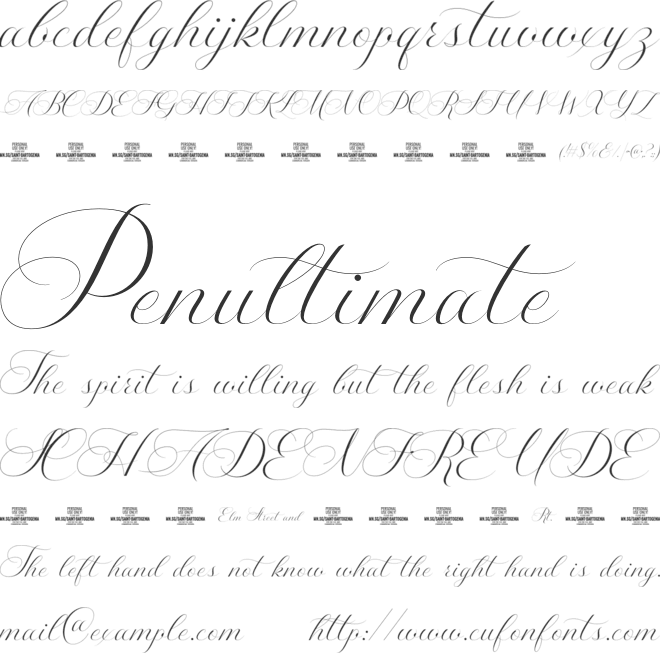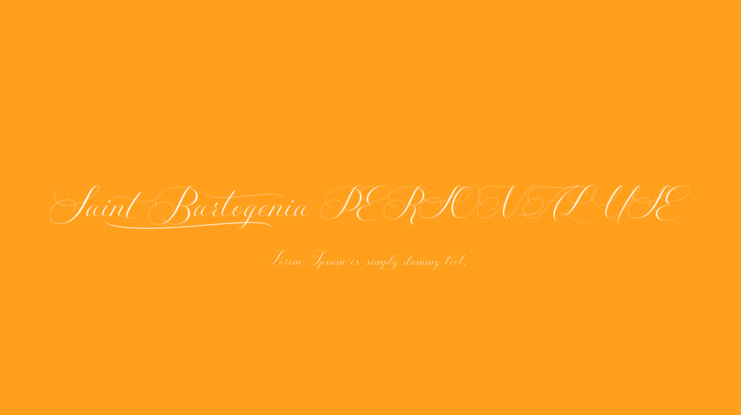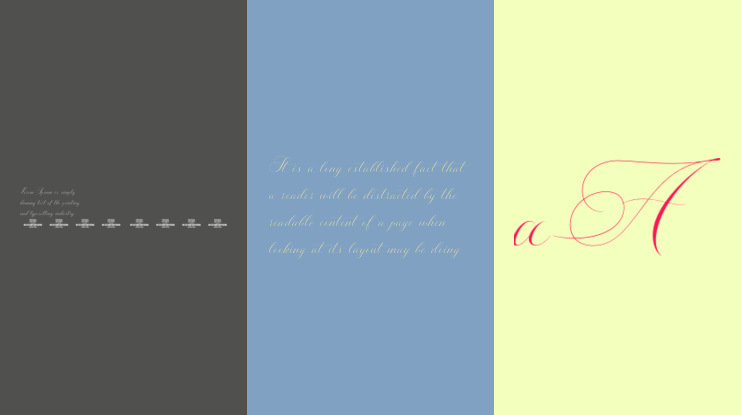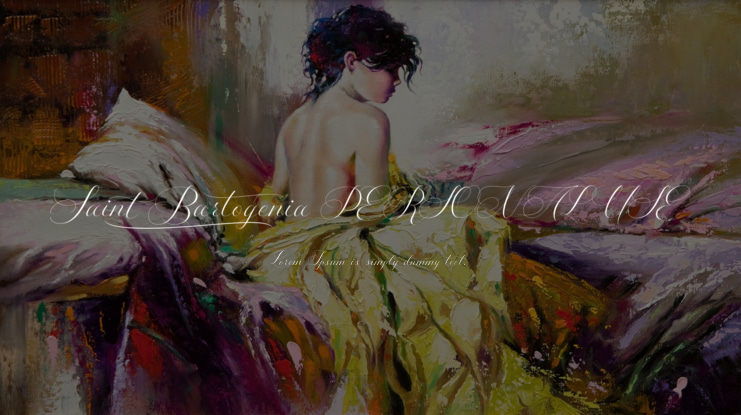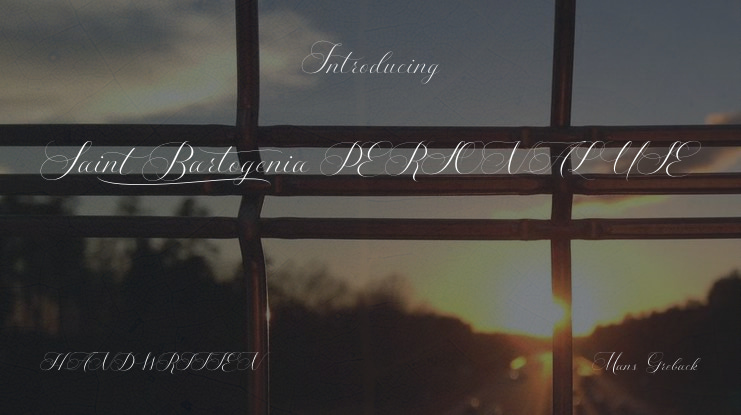
Saint Bartogenia PERSONAL USE Font
Saint Bartogenia is a handscript font that elegantly bridges the gap between handwriting and formality.
The thin, delicate lines of Saint Bartogenia create a sense of sophistication and grace, making each character swirl across the page like a light wind.
Use underscore _ anywhere in a word to make a swash.
Example: Ele_gant
Use multiple underscores to make longer underlines.
Example: Wonder___world